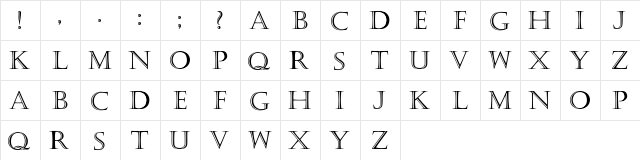
Kastellar Regular
Design Context for Kastellar Typeface
Kastellar offers clean, dependable letterforms without strong stylistic allegiance, making it a practical choice for designers who need flexibility.
Pro Tip: Use Kastellar in both headline and body roles to test its range before committing to a single application.